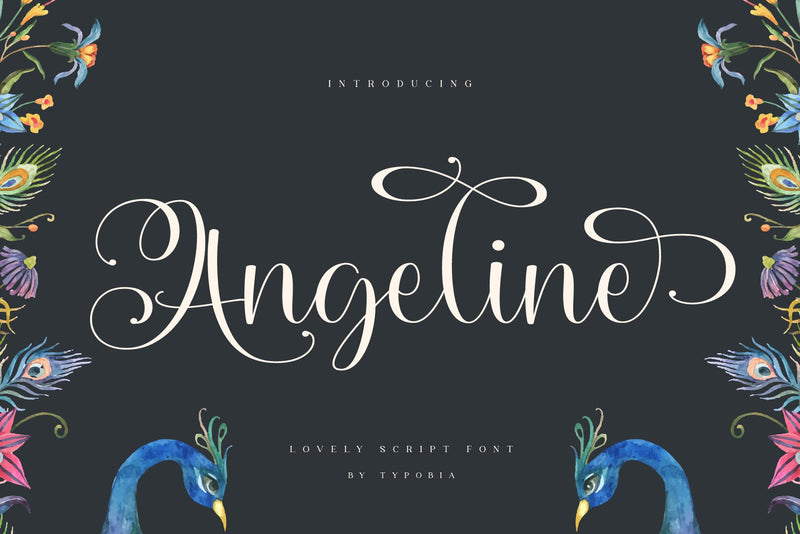
Angeline - Lovely Script Font
Angeline is lovely script font with a ton of alternate. this font easy to use and will turn your project standout! you cam use it as birthday card, wedding design, logo, apparel and many others. this font is PUA encoded which means you can access all of the glyphs and swashes with ease!
- Typobia